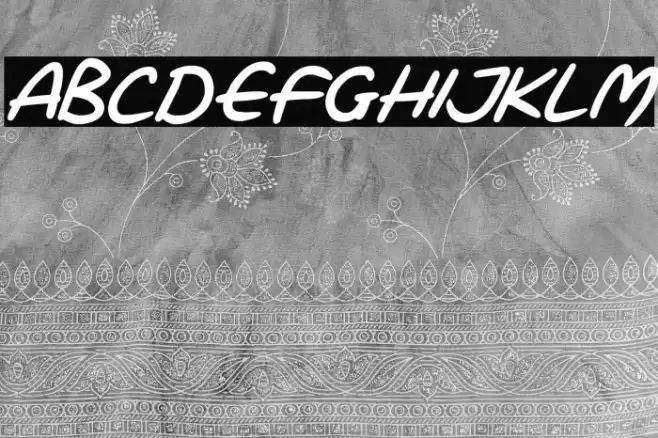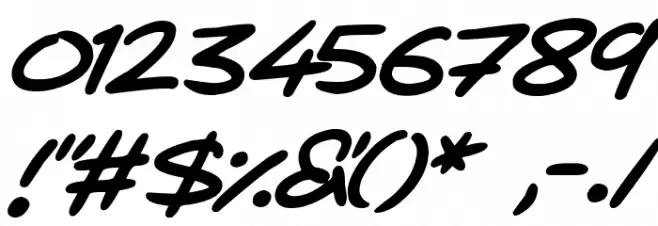
Love Marker Italic Font
Love Marker Italic Description
This font features a playful and dynamic handwritten style, characterized by its smooth, flowing curves and slightly slanted orientation. The letters are bold and rounded, giving a sense of warmth and approachability. The uppercase and lowercase letters maintain a consistent style, with a slight variation in size and shape that adds to the font's charm. The numerals are equally bold and rounded, ensuring readability. Special characters are integrated seamlessly, maintaining the overall aesthetic. The font's design evokes a sense of creativity and personal touch, making it suitable for projects that require a friendly and informal tone.
A bold, handwritten font with smooth, flowing curves and a playful style from Comic fonts.
- Proposed Projects: Ideal for greeting cards, invitations, personal branding, and creative projects that require a personal touch.
- Overall Style: Playful, Creative
- Use Case: Headlines, Logos, Invitations